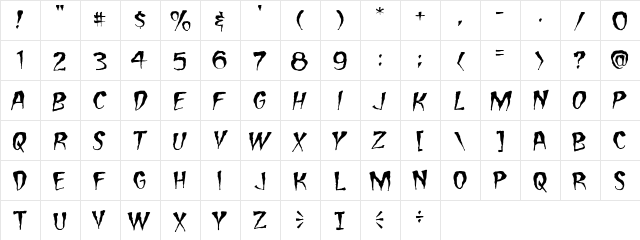
CCCarryOnScreaming Medium Font Preview
CCCarryOnScreaming Medium
Design Context for CCCarryOnScreaming Typeface
CCCarryOnScreaming is a composed and adaptable typeface that performs quietly and consistently across a wide range of design contexts.